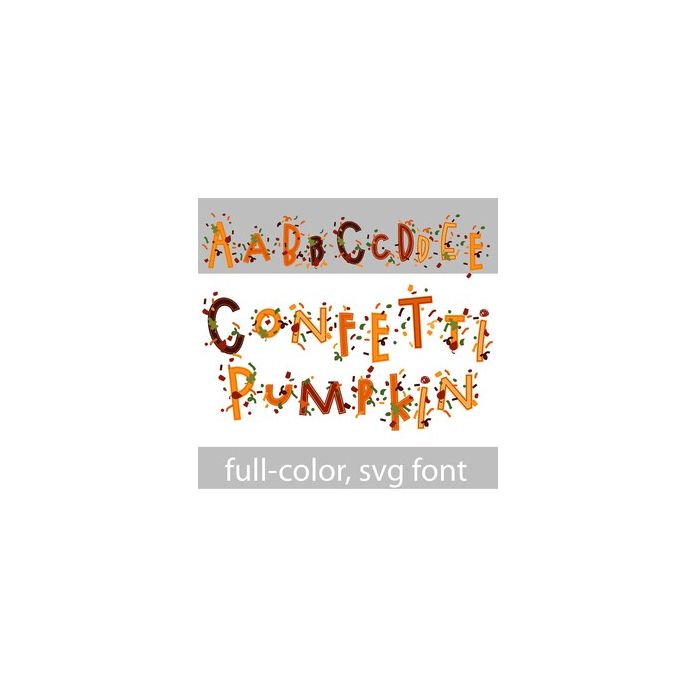
This full-color font features confetti and leaves falling around pumpkin colored, whimsical lettering. There is an alt case w/ additional colors you can access through your system or Silhouette's glyph map.